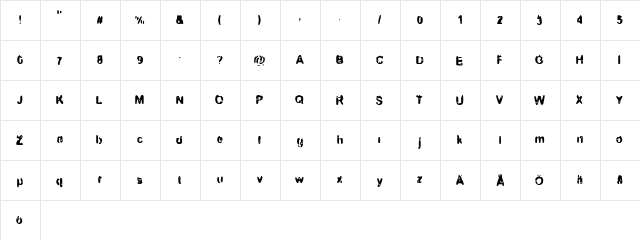
Brenda Spencer No monday
Design Context for Brenda Spencer Typeface
Brenda Spencer is a composed and adaptable typeface that performs quietly and consistently across a wide range of design contexts.
Pro Tip: Use Brenda Spencer in both headline and body roles to test its range before committing to a single application.